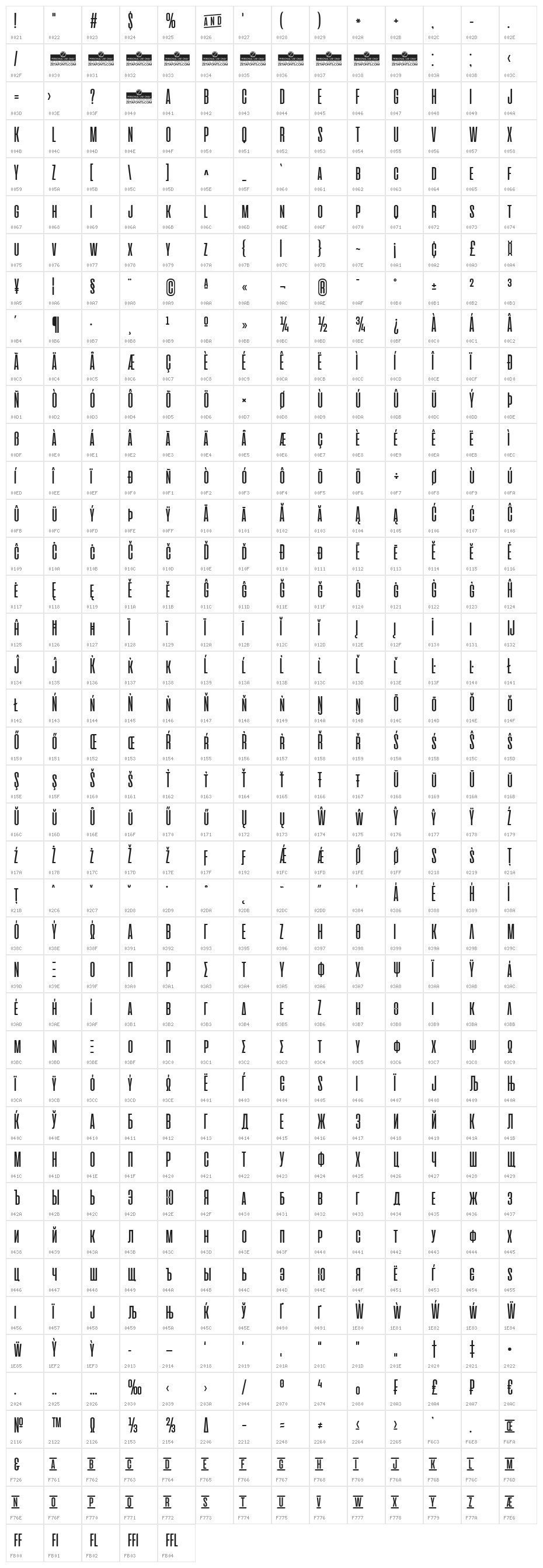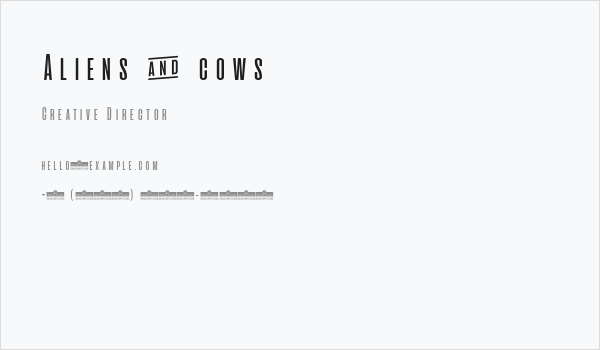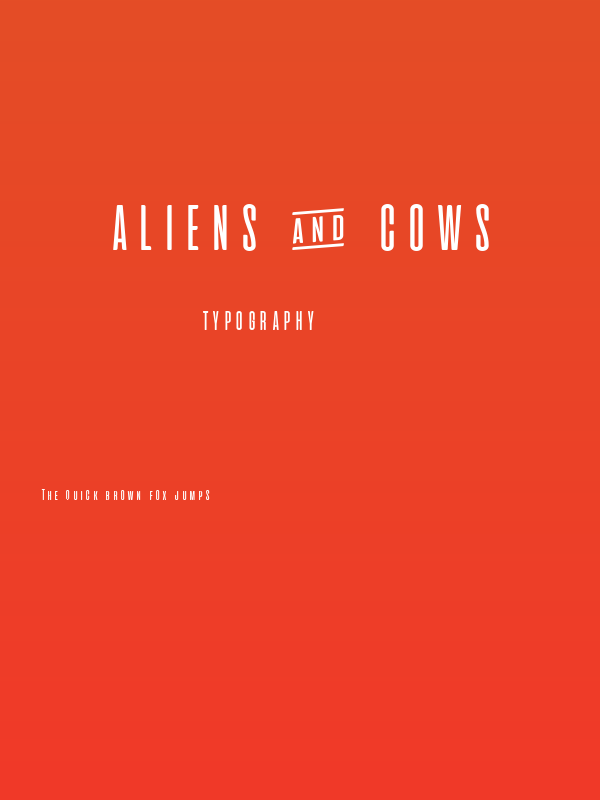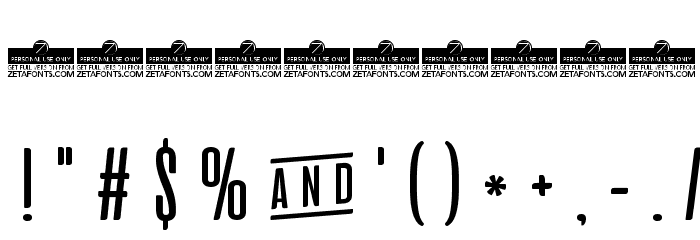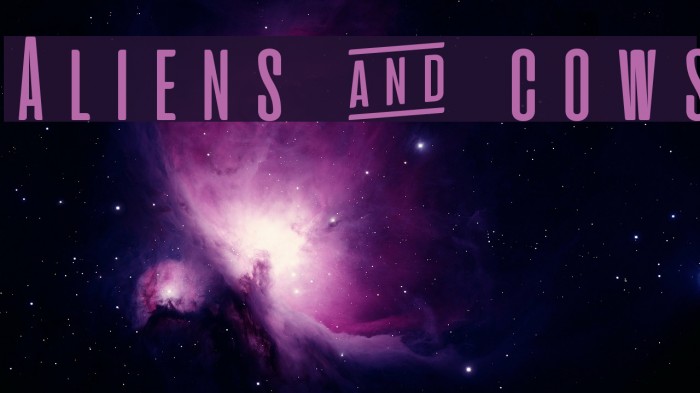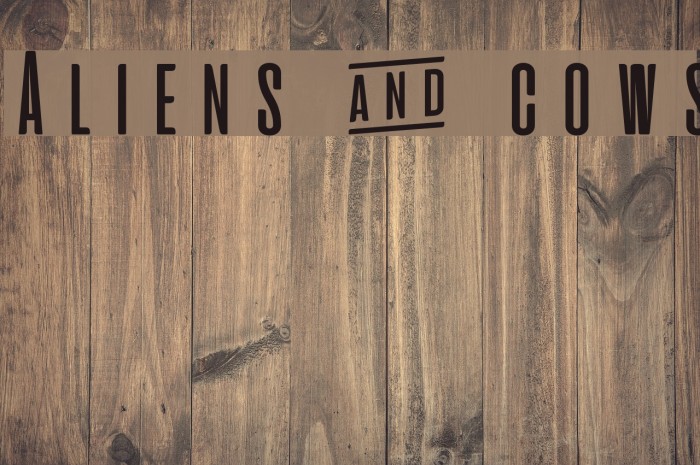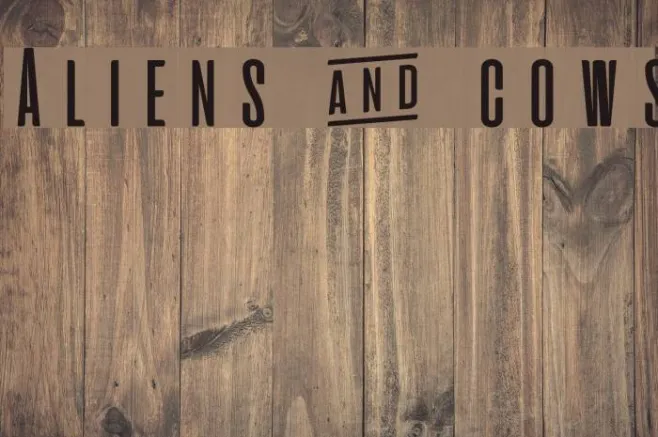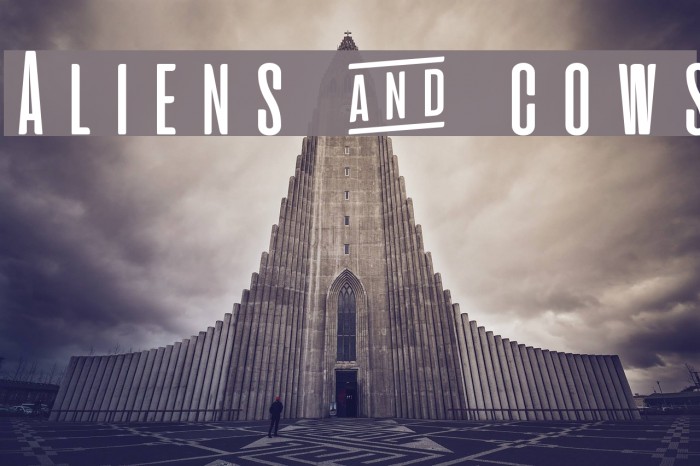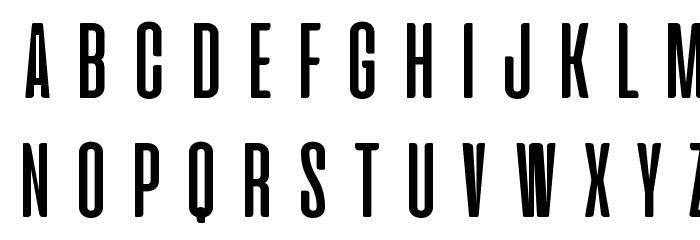
Aliens & cows Font
Aliens & cows Description
This font features a bold and condensed style, characterized by tall, narrow letters with a strong vertical emphasis. The uppercase and lowercase letters maintain a consistent width, creating a uniform appearance across the text. The font's design is modern and sleek, with clean lines and minimal ornamentation, making it highly legible even at smaller sizes. The numerals and special characters are designed to match the overall aesthetic, ensuring a cohesive look. This font's distinct style makes it suitable for various design applications where a contemporary and impactful look is desired.
| Proposed Projects | Ideal for branding, advertising, posters, and headlines where a strong visual impact is needed. |